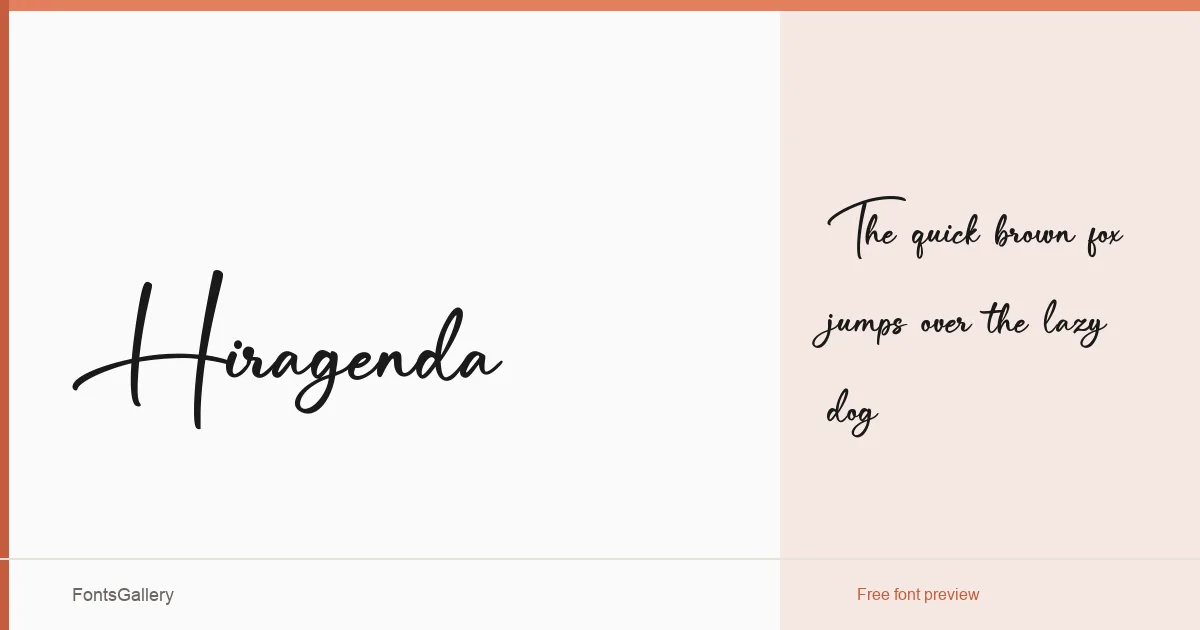
About Hiragenda Font
Hiragenda is an elegant script typeface created by Bery Arisandi and Basnistudio, crafted to bring a sense of refined luxury and romance to any design project. This sophisticated font embodies classic charm, making it a standout choice for high-end creative work. Its graceful script style exudes timeless beauty that resonates across a wide range of artistic applications.
Hiragenda features flowing, expressive letterforms characteristic of a classic script category, designed to evoke elegance and romantic sophistication. Each character carries a luxurious quality, with smooth curves and carefully balanced strokes that lend a sense of artistry and refinement. The overall aesthetic is both classic and elevated, making every word set in this typeface feel intentional and beautifully composed.
Hiragenda is ideally suited for logos, wedding stationery, invitation cards, branding projects, and greeting cards where an air of elegance and luxury is desired. Its romantic, classic character makes it especially well-suited for boutique branding, event design, and personal stationery. For a balanced and harmonious layout, Hiragenda pairs beautifully with Aresink for an all-script combination or with Helvetica for a clean, modern contrast.